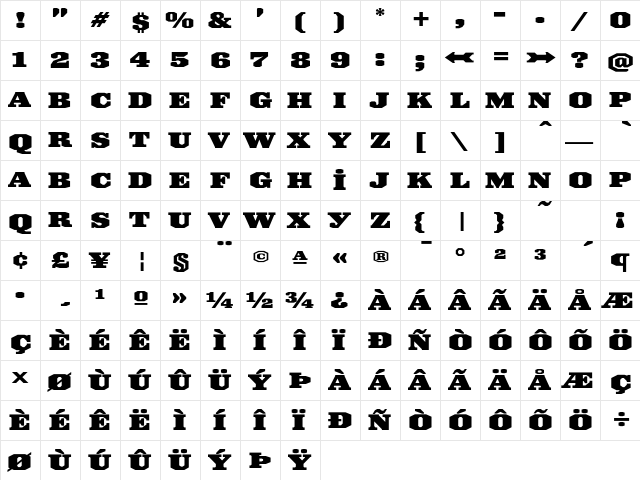
Ironmonger FB Black Regular Font Preview
Ironmonger FB Black Regular
Ironmonger FB Black Regular Font Details
| Foundry | The Font Bureau, Inc |
| Copyright | Copr.1991, The Font Bureau, Inc. Designer, John Downer. |
Design Context for Ironmonger FB Black Typeface
Ironmonger FB Black is a composed and adaptable typeface that performs quietly and consistently across a wide range of design contexts.